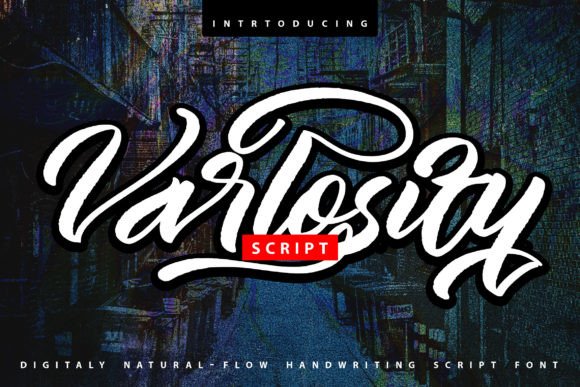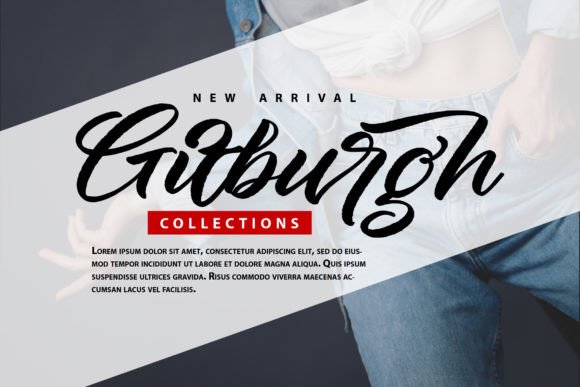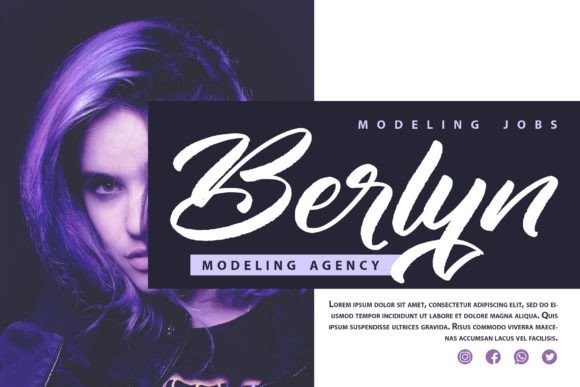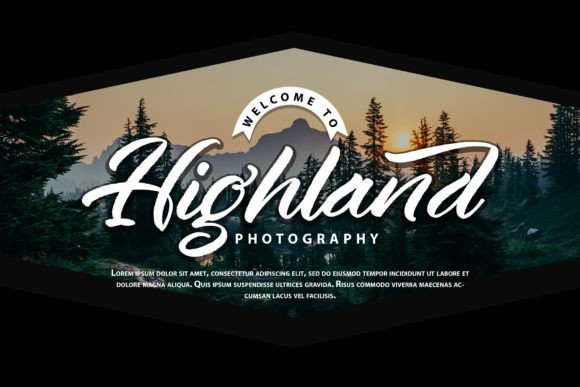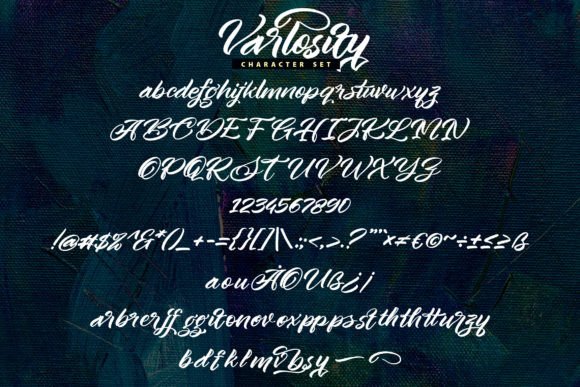
Varlosity Font
The Varlosity Font Download is an enchanting handwritten brush script that combines elegance with creativity. Designed with smooth brush strokes and a romantic touch, this typeface is versatile and adaptable, making it a great choice for a wide range of projects. From greeting cards and invitations to modern branding and digital content, Varlosity has the power to elevate your designs with charm and sophistication.
A Handwritten Script with Romantic Energy
The Varlosity script font blends brush lettering with a handcrafted feel, giving it personality and warmth. As a result, it looks timeless and stylish. Furthermore, its balanced flow ensures that it works beautifully across both small details and bold headlines.
Perfect for Invitations and Stationery
Handwritten fonts bring life to event materials. The Varlosity Font is perfect for wedding invitations, thank you notes, birthday cards, and seasonal greetings. Because of its natural brush style, every piece feels authentic and polished. In addition, it helps create a memorable impression on your audience.
Branding and Logo Design with Varlosity Font
Typography plays an essential role in branding. The Varlosity handwritten brush font is ideal for boutique logos, product packaging, and promotional campaigns. Its bold yet elegant script creates a sense of exclusivity and approachability at the same time. Therefore, it is especially effective for lifestyle, beauty, and creative brands.
Posters, Editorials, and Quotes
The Varlosity Font Download also works wonderfully in posters, magazines, and book covers. Inspirational quotes look stunning with its flowing handwritten energy. Consequently, it’s a reliable choice for designers who want sophistication without losing readability.
In today’s fast-paced digital world, fonts must stand out. The Varlosity typeface integrates seamlessly into Instagram posts, YouTube thumbnails, Pinterest boards, and blogs. Because of its enchanting handwritten brush strokes, it guarantees engaging and stylish digital content.
Why Designers Choose Varlosity Typeface
Designers appreciate fonts that balance expressiveness with usability. The Varlosity handwritten script retains its elegant, romantic feel while staying practical for multiple applications. This makes it ideal for professionals and hobbyists alike. Moreover, its timeless brush style ensures it remains relevant in future projects.